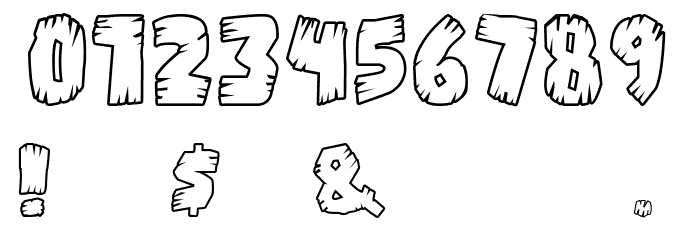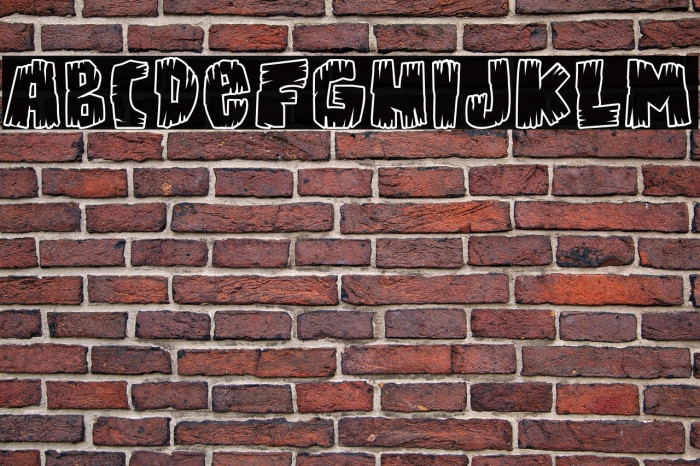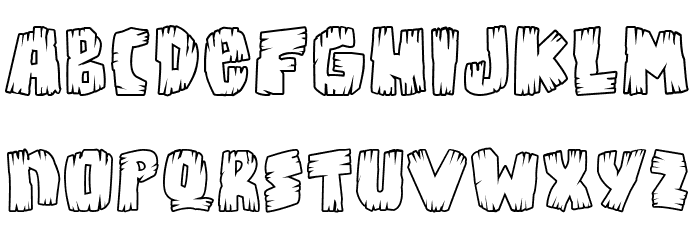
Bongus Highlight Font
This font features a bold, playful design with a hand-drawn aesthetic. Each character is outlined with a rough, sketch-like texture, giving it a dynamic and energetic feel. The letters are slightly irregular, adding to the whimsical and informal style. The font is highly decorative, making it suitable for creative and fun projects. Its boldness ensures high visibility, while the unique design elements make it stand out in any context.
A bold, playful font with a hand-drawn, sketch-like texture.
• Proposed Projects: Ideal for children's books, comic strips, playful branding, and event posters.
• Category: Decorative/Display
• Bold: Yes
• Italic: No
• Weight: Bold
• Width: Normal
• Character Spacing: Normal
• Contrast: Low
• Overall Style: Playful, Whimsical
• Use Case: Headlines, Logos, Posters